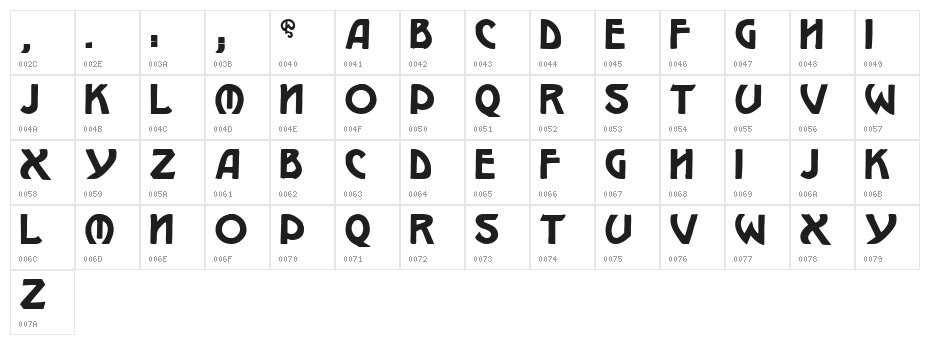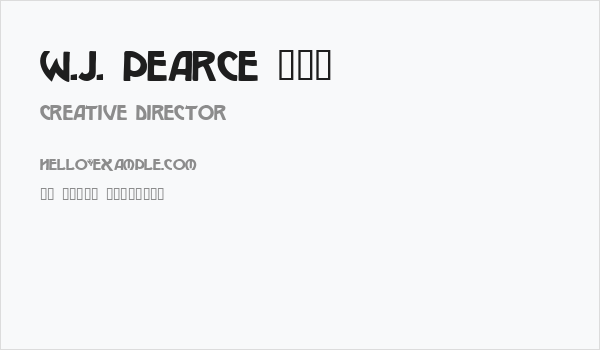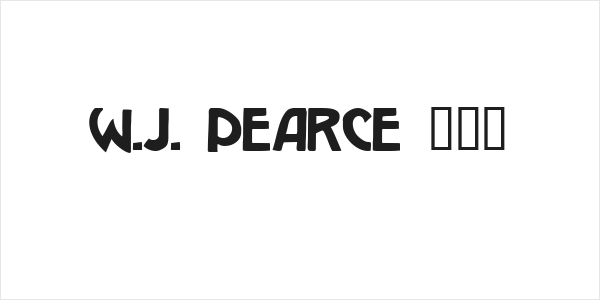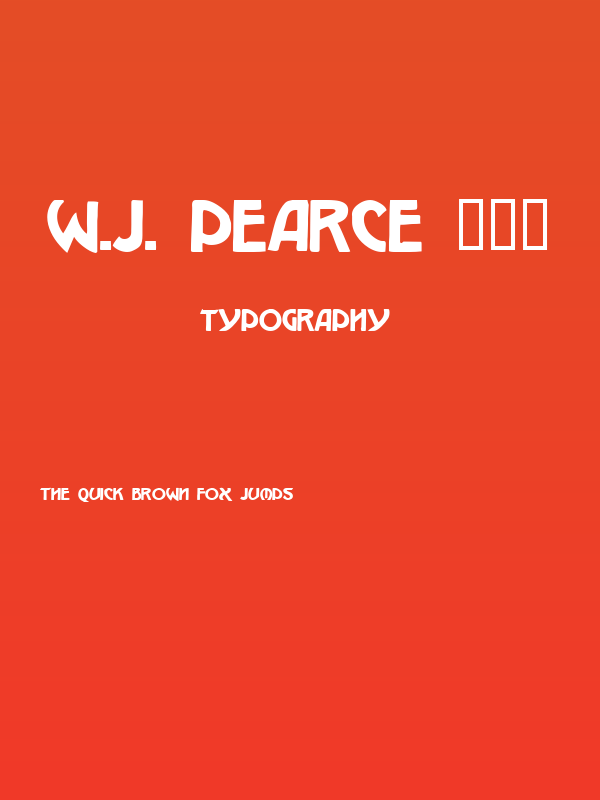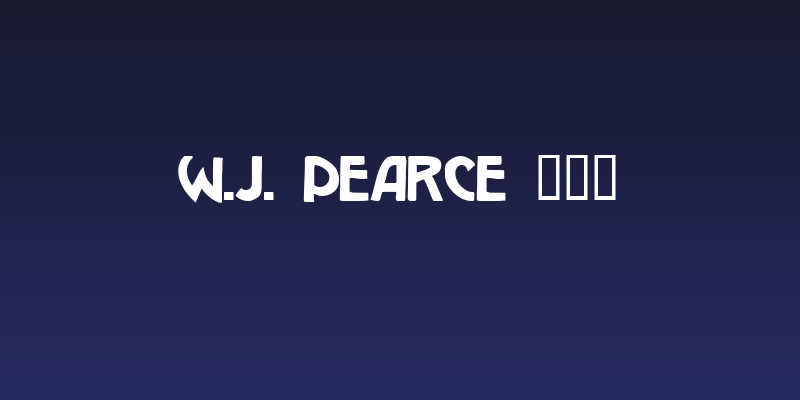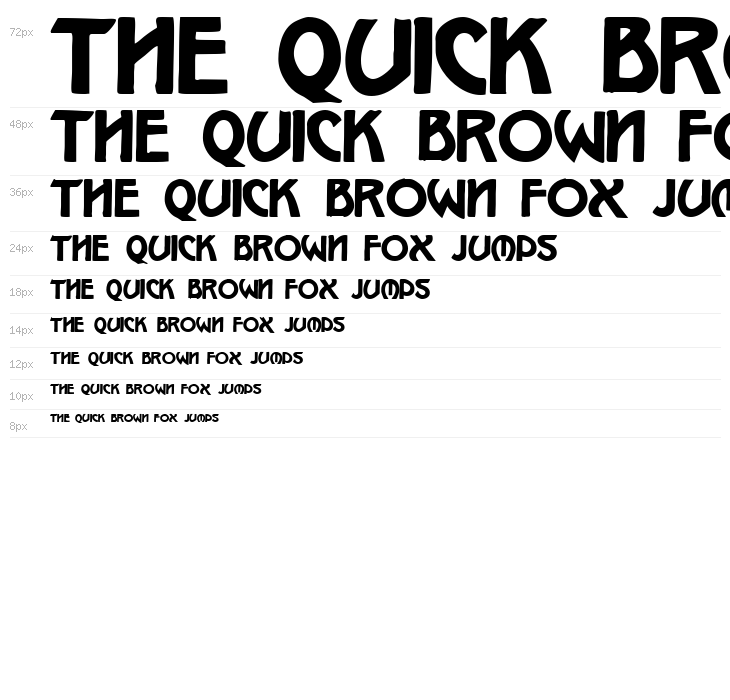
W.J. Pearce 213 Font
W.J. Pearce 213 Description
This font features a bold and striking design with a unique, artistic flair. The characters are crafted with thick strokes and a slightly condensed form, giving them a powerful presence. The uppercase letters exhibit a playful yet structured style, while the lowercase letters maintain consistency in their boldness. The numbers and special characters are designed to match the overall aesthetic, ensuring uniformity across all glyphs. The font's distinct appearance makes it suitable for creative and eye-catching designs.
| Proposed Projects | Ideal for posters, logos, branding, and any project requiring a bold, artistic touch. |